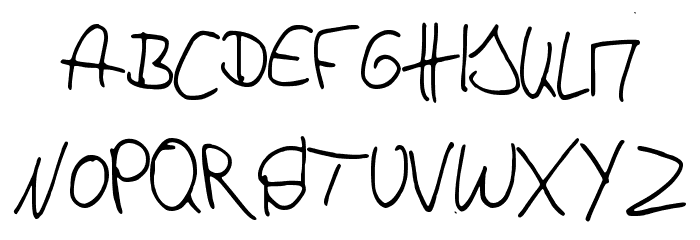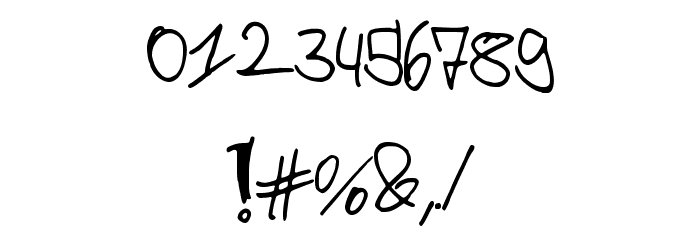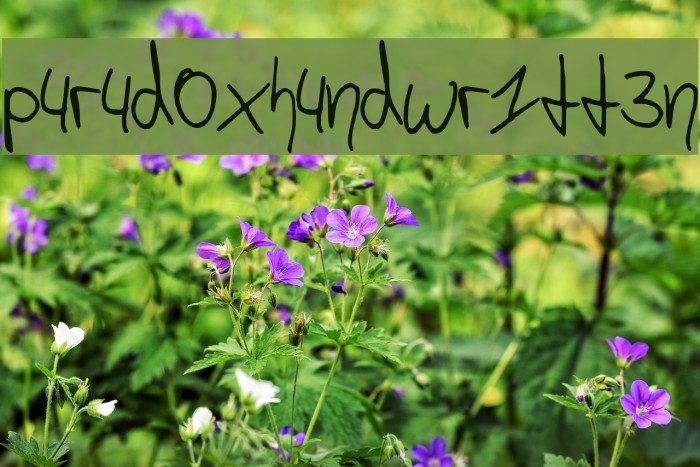
p4r4d0x_h4ndwr1tt3n Font
This font exudes a casual, handwritten style with a playful and informal appearance. The letters are slightly slanted, giving a dynamic and energetic feel. The strokes are uneven, mimicking the natural flow of handwriting, which adds a personal touch to the text. The characters are well-spaced, ensuring readability while maintaining a relaxed vibe. The uppercase and lowercase letters are distinct, with unique quirks in each character that enhance the font's charm. The numbers and special characters follow the same handwritten aesthetic, making this font versatile for various creative projects.
A playful, handwritten font with a casual and informal style.
- Proposed Projects: Ideal for personal notes, greeting cards, invitations, and creative branding projects.
- Category: Handwritten
- Overall Style: Casual
- Use Case: Headlines, Logos, Informal Text